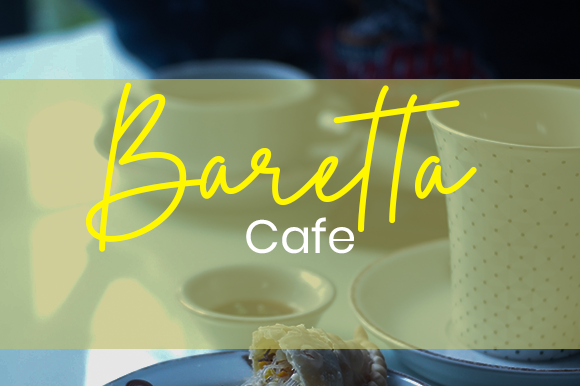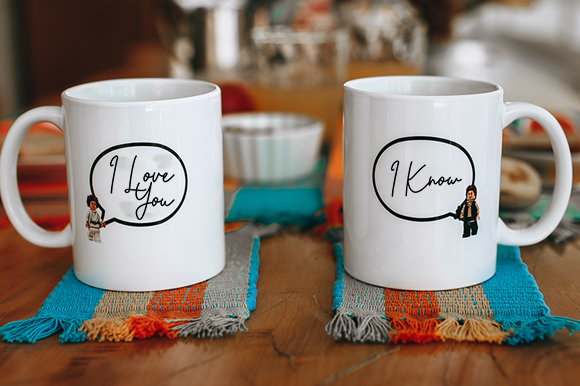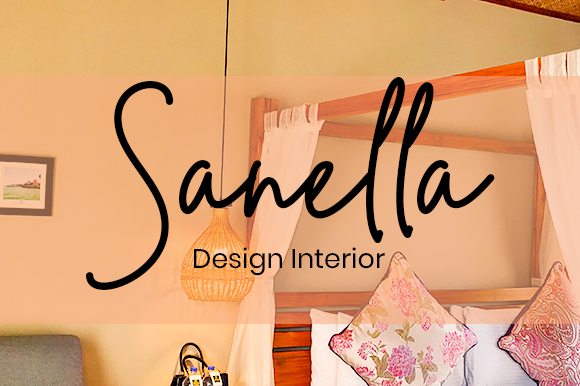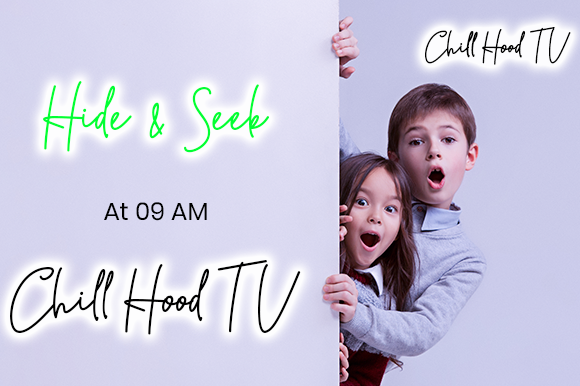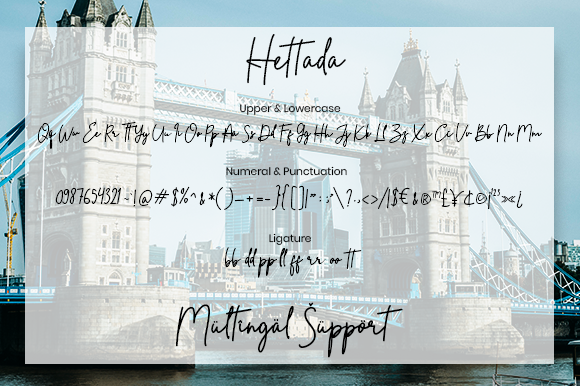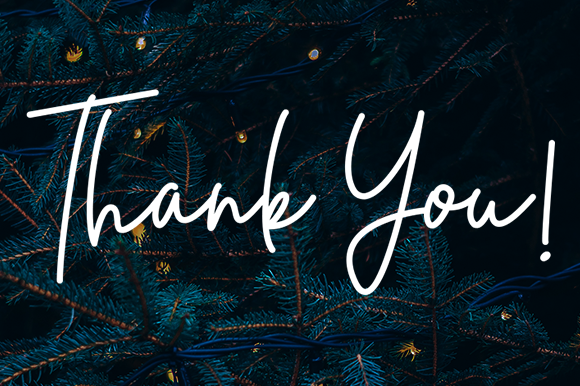
Hettada Font
About Hettada Font
Introducing “Hettada,” a simple, neat, and stylish handwritten font that exudes elegance and charm. With its dainty and joyful aesthetic, this font is the perfect choice for writing wedding invitations, cards, or any other design that requires a romantic and personalized touch.
Hettada’s clean and refined letterforms give your designs a polished and sophisticated look. The carefully crafted strokes and balanced proportions create a sense of harmony and grace, adding a touch of elegance to your projects. Each letter is thoughtfully designed to maintain legibility while embodying a handwritten feel.
The versatility of Hettada allows it to adapt effortlessly to various design contexts. Its understated beauty and simplicity make it suitable for a wide range of applications, including wedding invitations, love letters, greeting cards, stationery, and more. Whether you’re planning a romantic event or want to add a personalized touch to your designs, Hettada is the font that can elevate your creations.
The joyful and dainty nature of Hettada brings a sense of warmth and intimacy to your projects. It adds a personal and heartfelt touch, making your designs feel special and unique. Whether you’re expressing love, gratitude, or celebration, Hettada will help you convey your message with elegance and style.
From its graceful curves to its delicate details, Hettada captures the essence of romance and individuality. Its handwritten style evokes a sense of intimacy and authenticity, creating a connection with your audience. Whether you’re a designer, bride-to-be, or someone looking to add a touch of elegance to their projects, Hettada is a font that can bring your vision to life.
Choose Hettada for its simplicity, neatness, and stylish appeal. Let it be the perfect companion for your wedding invitations, cards, and any other design that calls for a romantic and personalized touch. With Hettada, your designs will shine with elegance and captivate the hearts of your audience.
Embrace the beauty and charm of Hettada and allow it to elevate your designs to new heights. Its simplicity, neatness, and stylish nature make it an ideal choice for creating romantic and personalized designs that leave a lasting impression. Add Hettada to your font collection and let its dainty and joyful presence bring your creative visions to life.